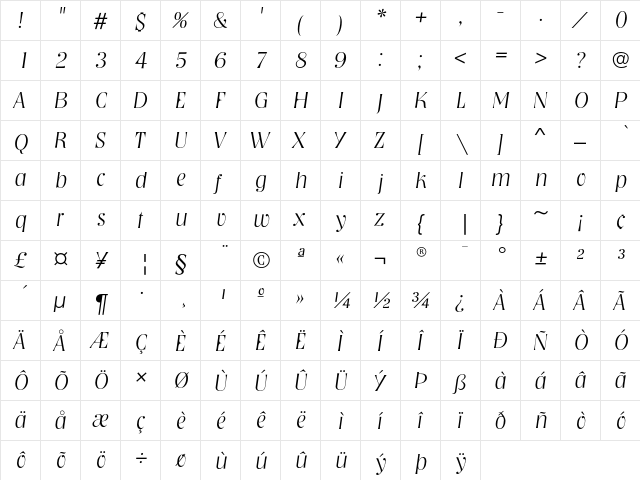
NashvilleEF ExtraLightItalic Font Preview
Design Context for NashvilleEF Typeface
NashvilleEF takes a measured approach to typography — its balanced proportions and neutral character make it a reliable workhorse for both digital and print work. The slanted form adds forward momentum and visual energy. The delicate stroke weight brings airiness and refinement to layouts.
Pro Tip: Try NashvilleEF for annotation and caption copy alongside an upright companion — the contrast in angle creates a dynamic but ordered typographic system.